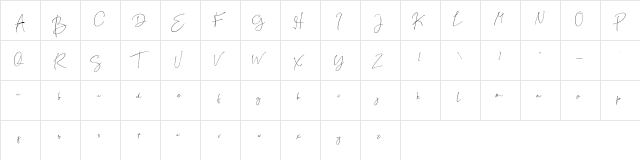
Best Deals Regular
| Foundry | Malindo Creative |
| Designer | Murtadha Bin Sulaiman |
Design Context for Best Deals Typeface
Best Deals is a composed and adaptable typeface that performs quietly and consistently across a wide range of design contexts.